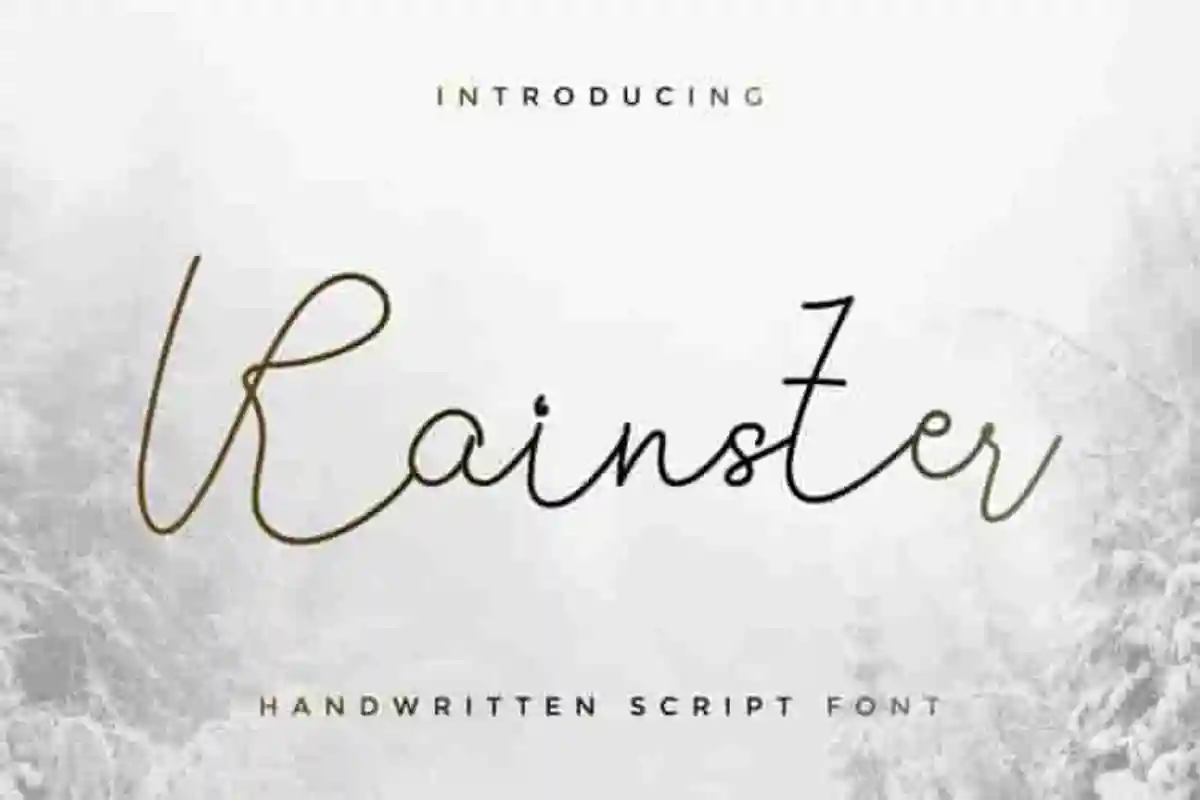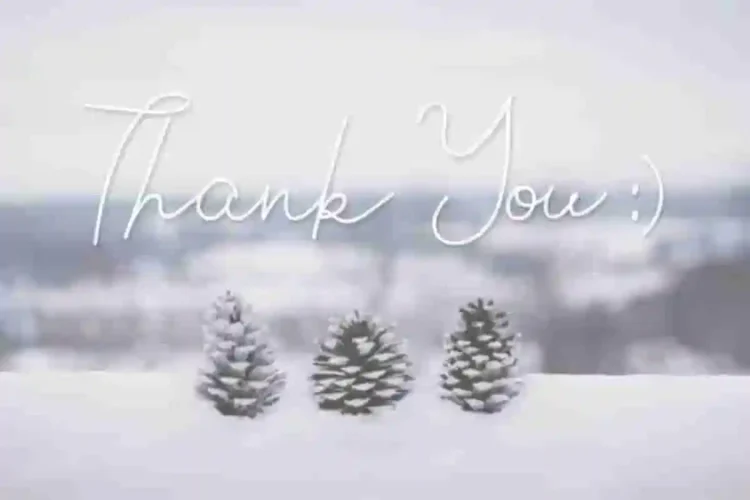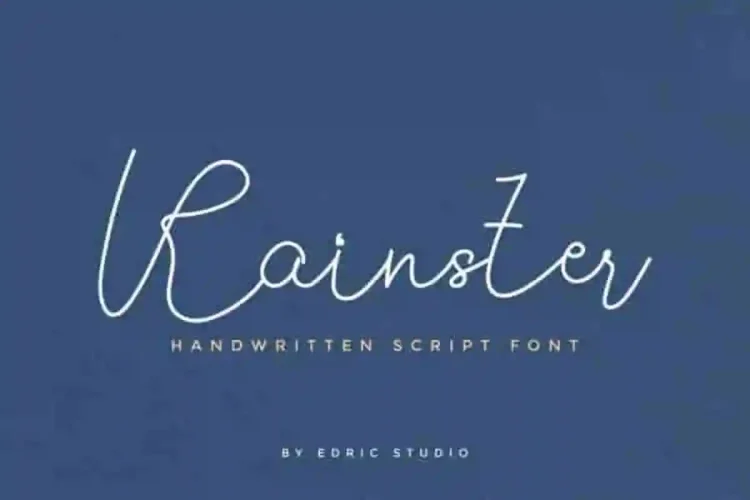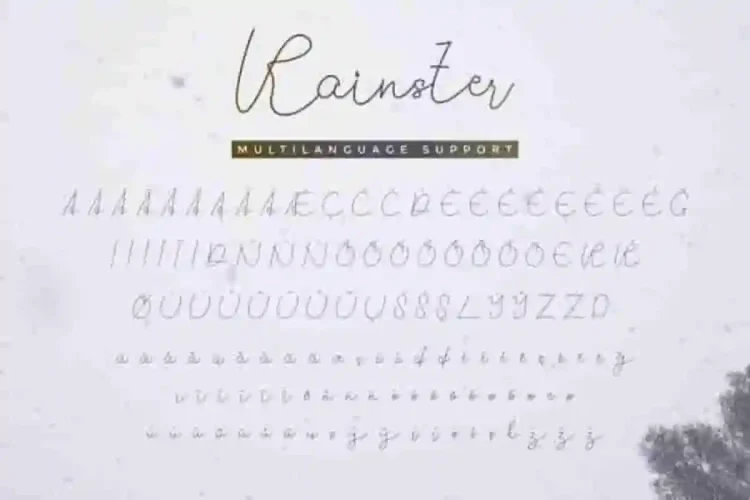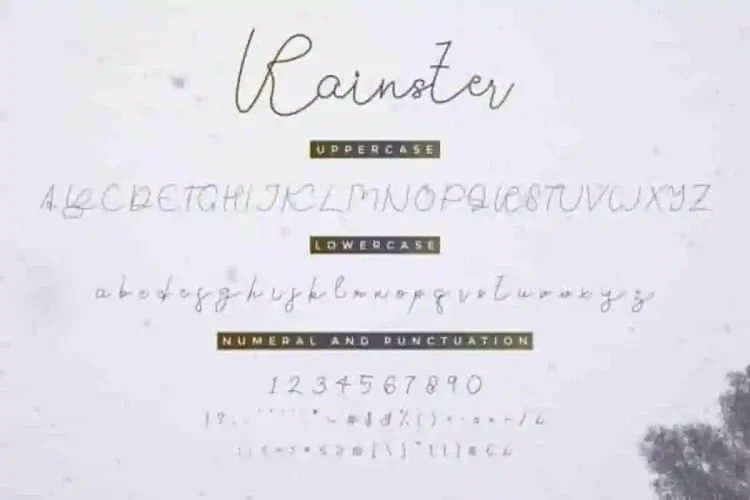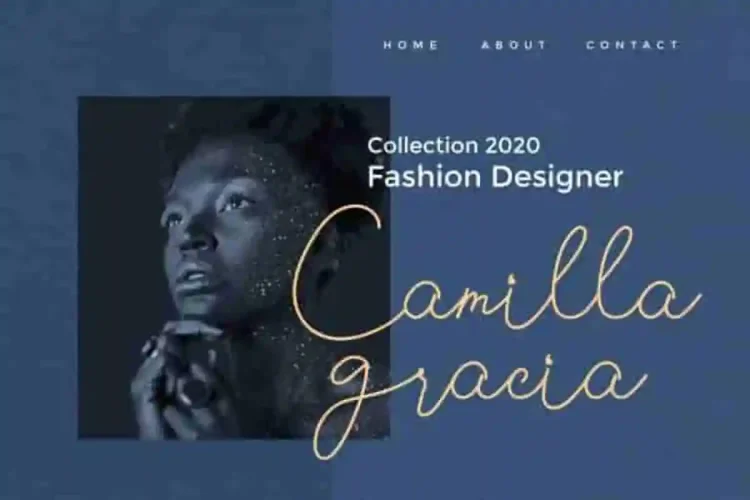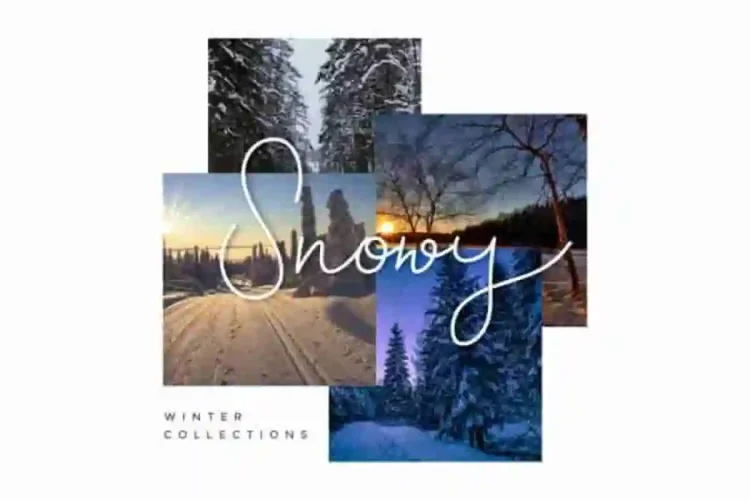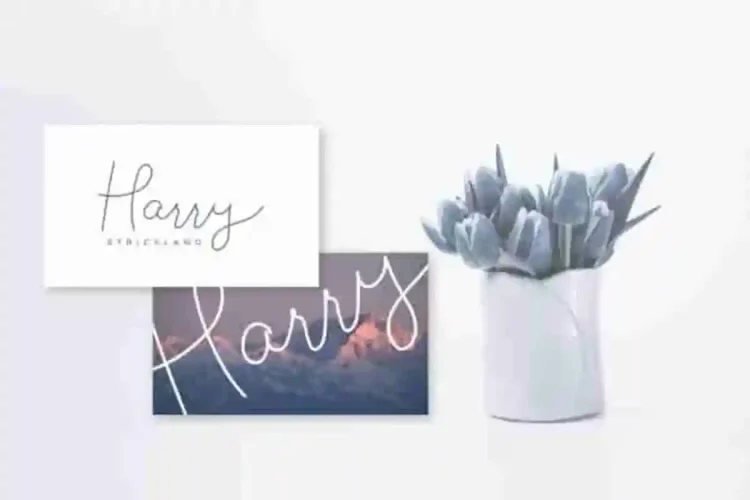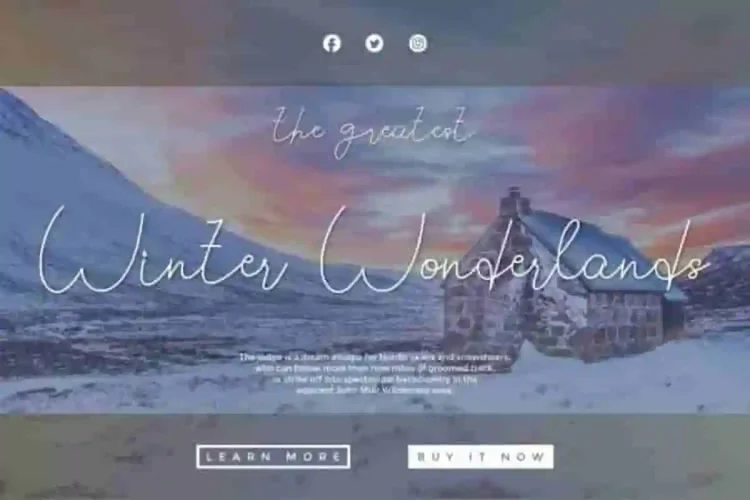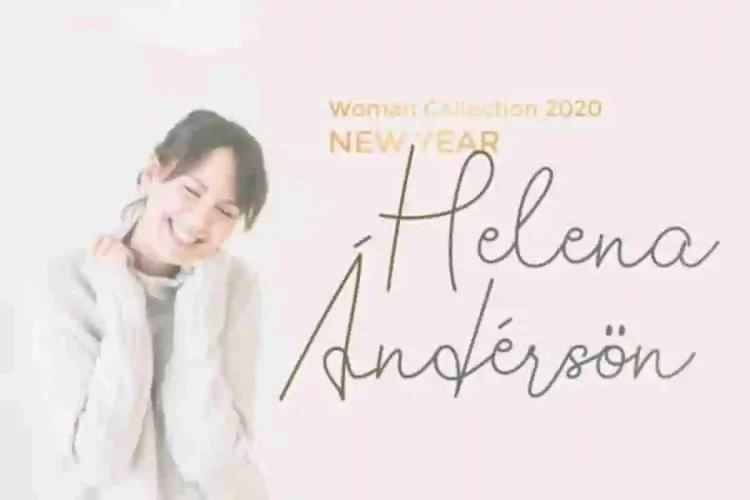
Rainster Handwriting Font
Introducing The newest font from our studio : Rainster Handwriting Font
This is a script font, handcrafted from our Studio here in, Indonesia. The artists/designers of this unique tyeface is Yasri and Suci.
Rainster Handwriting Font is a script typeface with handwriting style. This font has a great characters set, perfectly managed with well spaced and kerning.
Rainster Handwriting Font will be great for any projects including :logotype, poster, flyer, signage, cover, brochure etc.